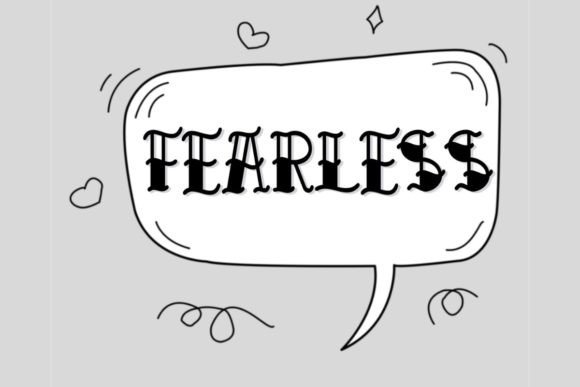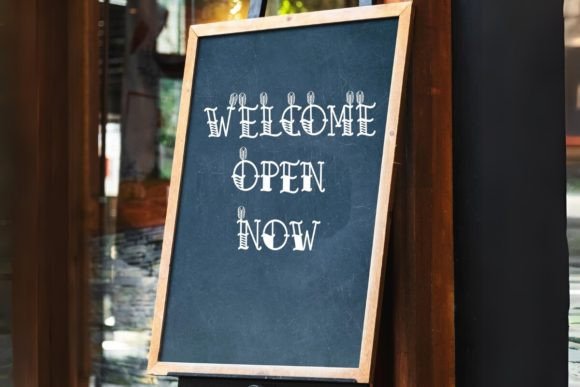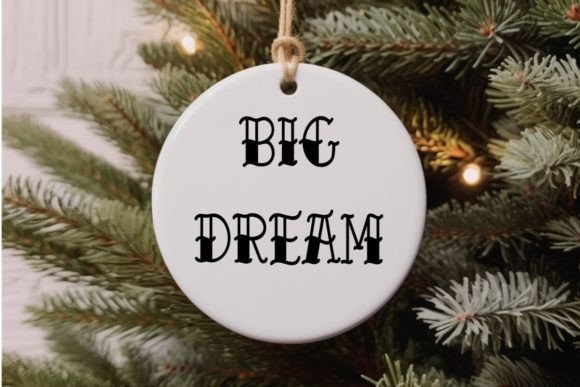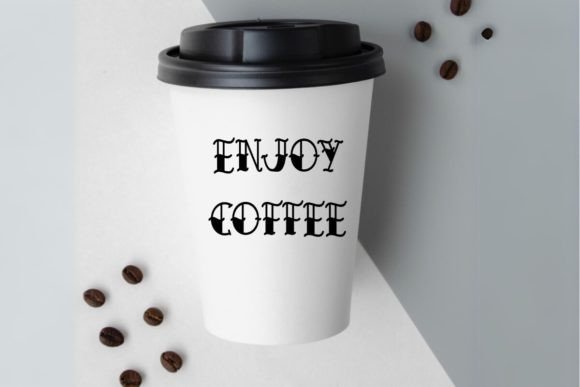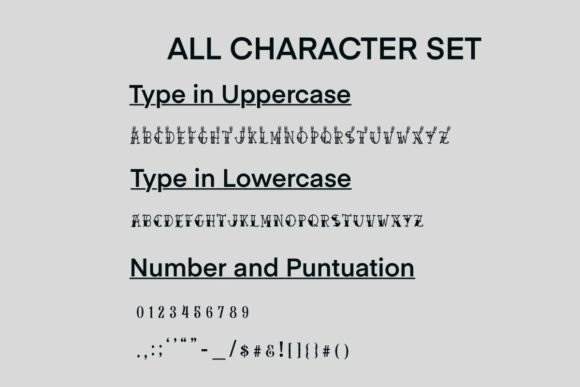
Introducing Fly Feather Font: The Ultimate Classic Tattoo Font
Are you a designer or crafter looking for a unique and quirky font to add a touch of personality to your designs? Look no further than Fly Feather Font, a classic tattoo font that combines the elegance of serif typography with the playfulness of feather decorations. In this article, we’ll explore the features and benefits of Fly Feather Font, and show you how to use it to take your creative ideas to the next level.
What is Fly Feather Font?
Fly Feather Font is a one-of-a-kind font that blends the timeless appeal of classic tattoo fonts with the whimsy of feather decorations. This quirky-looking serif font features intricate feather designs that add a touch of bohemian flair to any design. With its bold and eye-catching style, Fly Feather Font is perfect for designers and crafters who want to create unique and memorable designs that stand out from the crowd.
Key Features of Fly Feather Font
- Classic Tattoo Font: Fly Feather Font is inspired by the classic tattoo fonts of the past, with a bold and rugged style that’s perfect for creating eye-catching designs.
- Feather Decorations: The font features intricate feather decorations that add a touch of whimsy and playfulness to any design.
- Serif Typography: Fly Feather Font is a serif font, which means it features small lines or flourishes at the ends of each letter.
- Quirky and Unique: Fly Feather Font is a truly unique font that will add a touch of personality to any design.
How to Use Fly Feather Font
Fly Feather Font is incredibly versatile and can be used for a wide range of design projects, including:
- Tattoo Designs: Fly Feather Font is perfect for creating bold and eye-catching tattoo designs that will make a statement.
- Graphic Design: Use Fly Feather Font to add a touch of personality to your graphic designs, such as posters, flyers, and brochures.
- Crafting: Fly Feather Font is perfect for crafters who want to create unique and personalized gifts, such as handmade cards and gift tags.
- Digital Art: Use Fly Feather Font to add a touch of whimsy to your digital art, such as illustrations and paintings.
Benefits of Using Fly Feather Font
- Adds Personality to Your Designs: Fly Feather Font is a unique and quirky font that will add a touch of personality to any design.
- Perfect for Creative Projects: Fly Feather Font is perfect for designers and crafters who want to create unique and memorable designs.
- Easily Customizable: Fly Feather Font can be easily customized to fit your design needs, including adjusting the size, color, and style.
- High-Quality Design: Fly Feather Font is designed with high-quality craftsmanship, ensuring a professional and polished look.
Tips and Tricks for Using Fly Feather Font
- Experiment with Different Colors: Fly Feather Font looks great in a variety of colors, so don’t be afraid to experiment and find the perfect hue for your design.
- Use it Sparingly: Fly Feather Font is a bold and eye-catching font, so use it sparingly to avoid overwhelming your design.
- Combine with Other Fonts: Fly Feather Font pairs well with other fonts, so try combining it with a sans-serif font for a unique and interesting look.
Fly Feather Font is a unique and quirky font that combines the elegance of serif typography with the playfulness of feather decorations. With its bold and eye-catching style, Fly Feather Font is perfect for designers and crafters who want to create unique and memorable designs. Whether you’re creating tattoo designs, graphic designs, or digital art, Fly Feather Font is the perfect choice. So why wait? Download Fly Feather Font today and take your creative ideas to the next level!